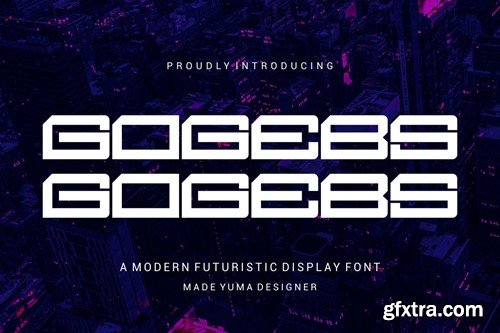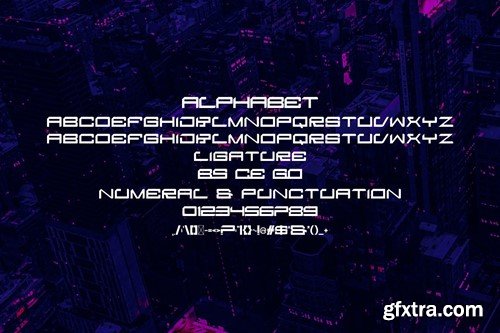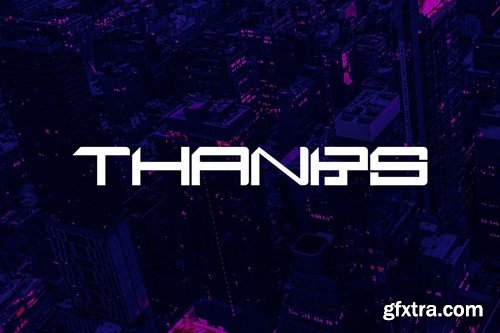
戈格布斯 - 现代未来主义显示器字体 8AMHBT6
Gogebs - Futuristic Display Font
Introducing Gogebs Modern Sans Serif Font. Gogebs is a modern and simple font, best used as a display for headings, logos, branding, magazines, product packaging and invitations. Gogebs come with clean lines and smooth curves give any project an extra touch of class. What you get: Thank you.